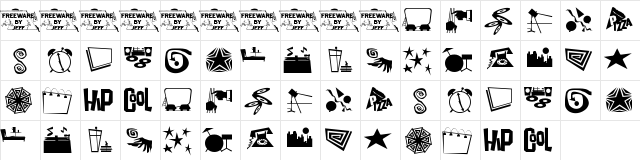
Lounge Lizards JL Regular
| Foundry | Jeff's Fonts & Dingbats |
| Designer | Jeffrey N. Levine |
Design Context for Lounge Lizards JL Typeface
Lounge Lizards JL is a composed and adaptable typeface that performs quietly and consistently across a wide range of design contexts.